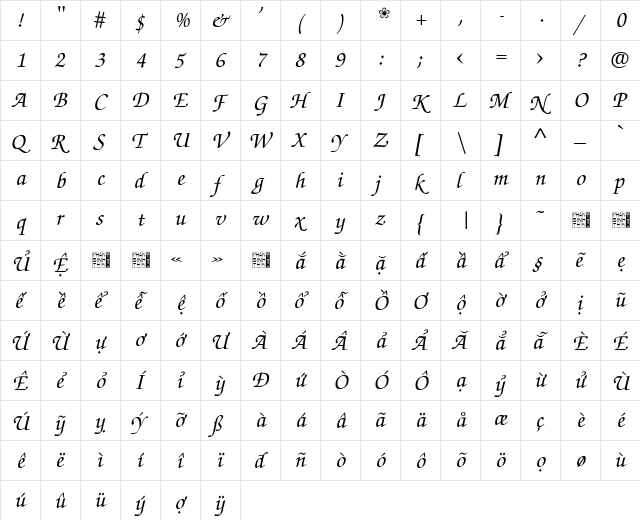
Vien Khuc by Thin Phan Dinh Regular
Design Context for Vien Khuc by Thin Phan Dinh Typeface
Vien Khuc by Thin Phan Dinh takes a measured approach to typography — its balanced proportions and neutral character make it a reliable workhorse for both digital and print work. Its slender proportions lend an understated elegance to any composition.